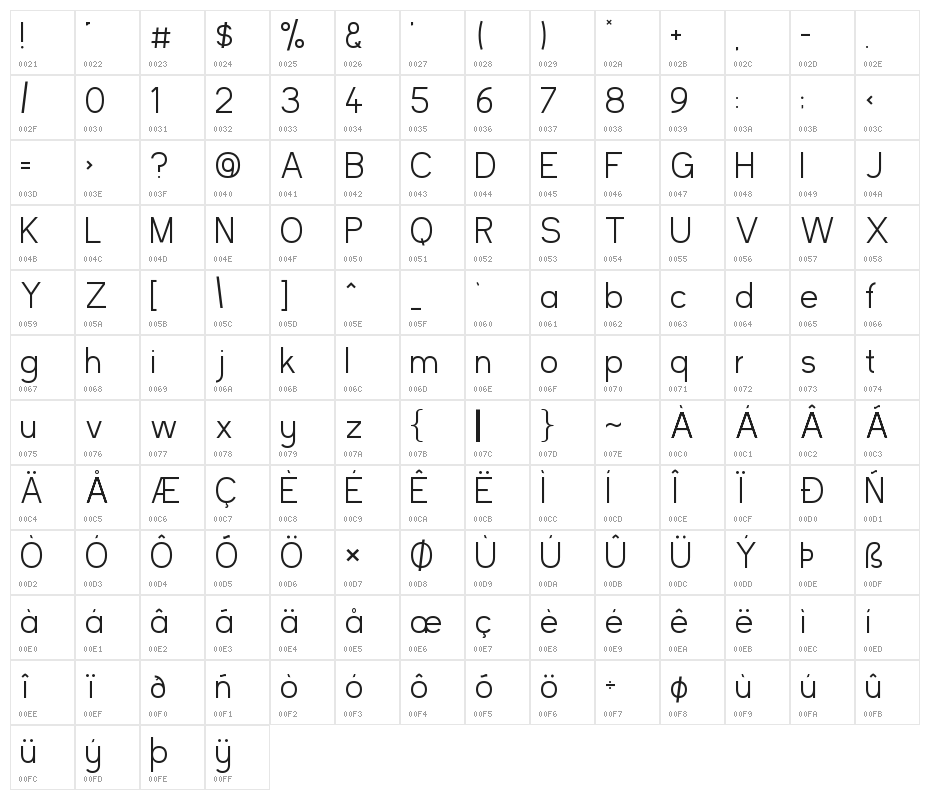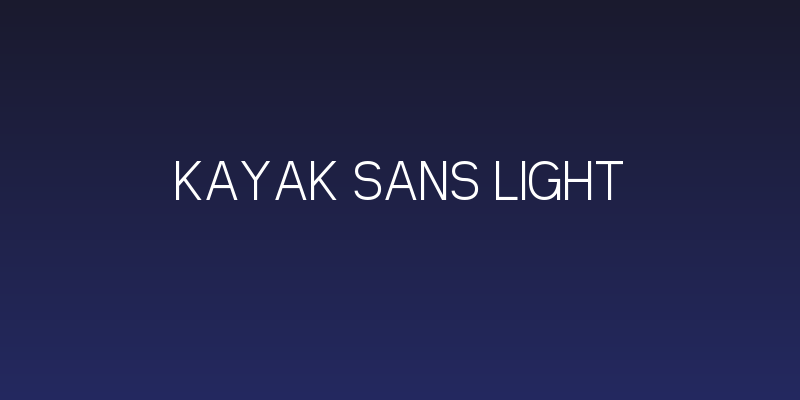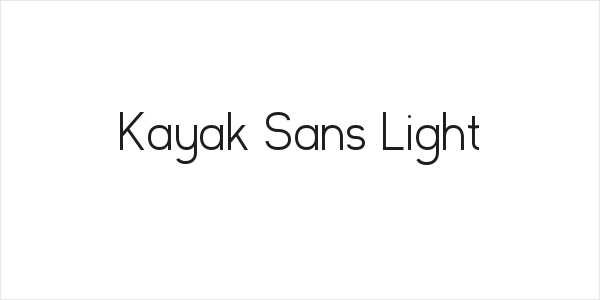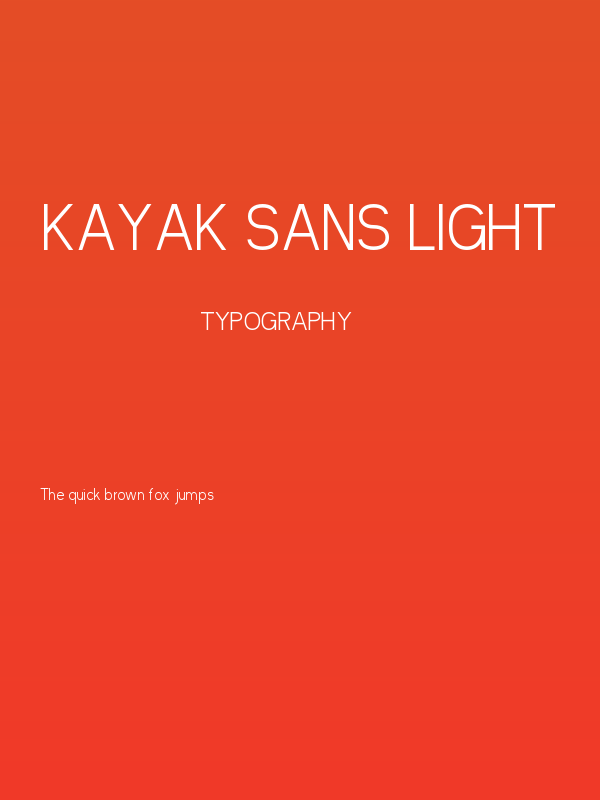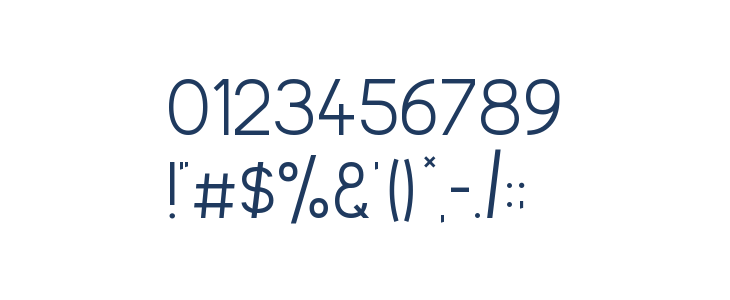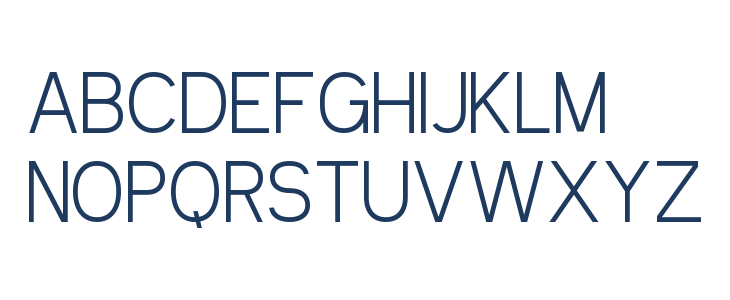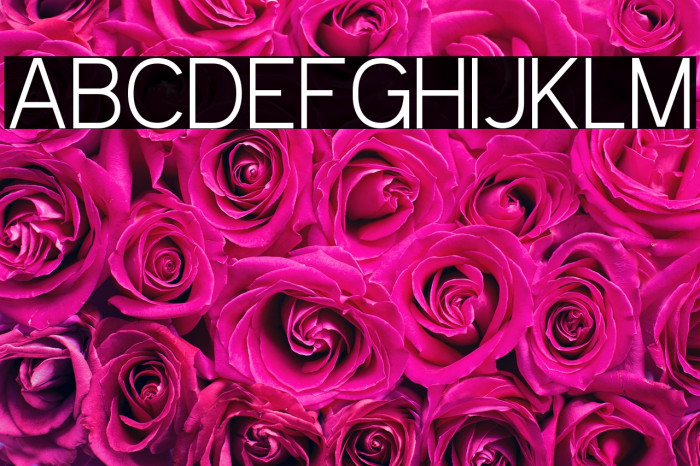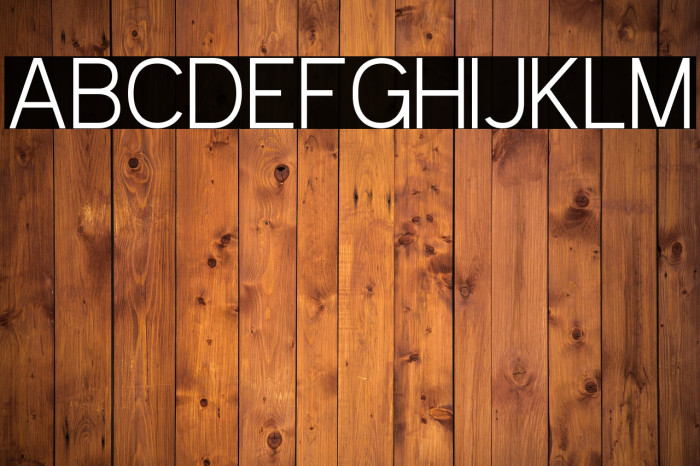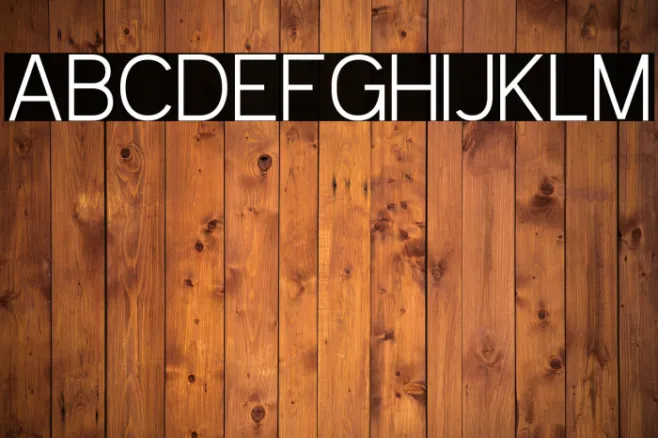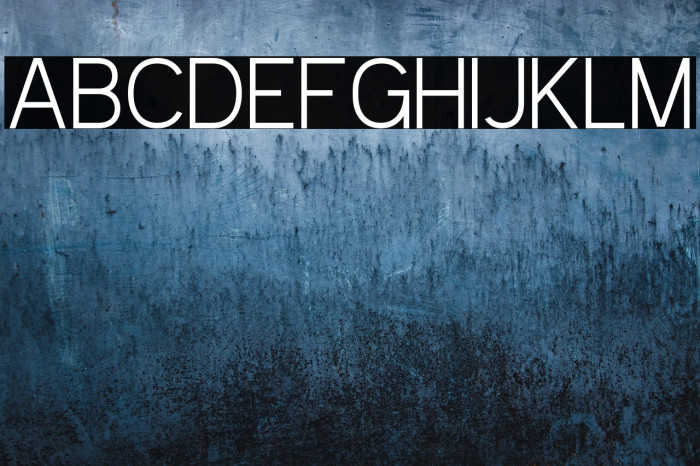
Kayak Sans Light Font
Kayak Sans Light Description
This typeface features a clean and modern sans-serif design with a light weight, offering a sleek and minimalistic appearance. The characters are well-proportioned with a consistent stroke width, providing a harmonious and balanced look. The uppercase letters are bold and assertive, while the lowercase letters maintain a friendly and approachable feel. The numerals are clear and easy to read, making them suitable for a variety of applications. The special characters are distinct and well-integrated into the overall design, ensuring versatility in usage. The font's simplicity and elegance make it ideal for contemporary design projects.